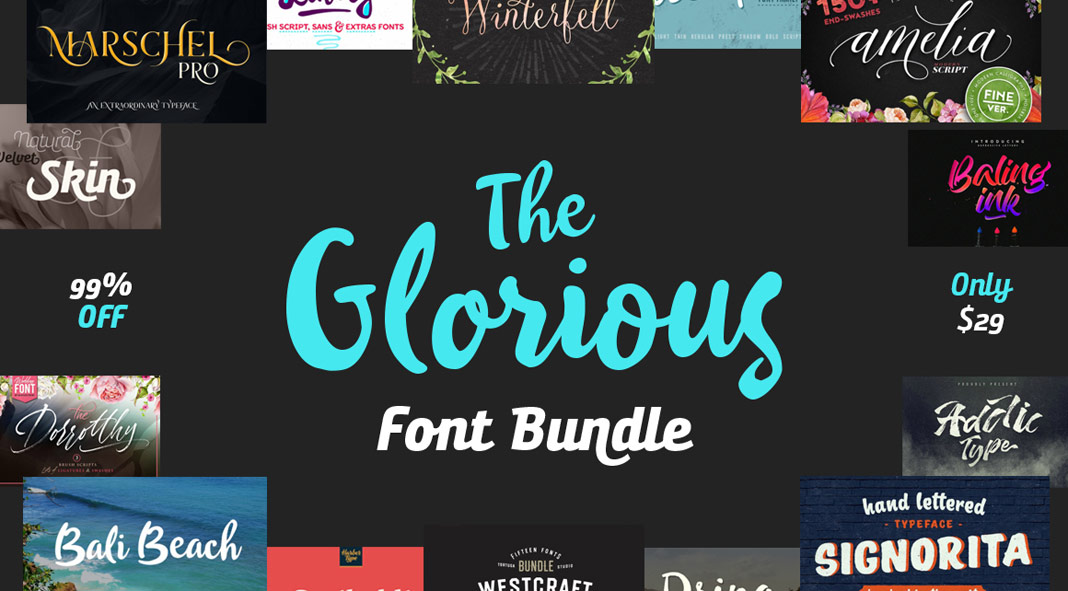
Once again, Pixelo’s current deal is all about fonts! It includes a great selection of beautiful typefaces such as sans serifs, display and script fonts. The varying styles are well suited for different purposes such as advertisement, branding, clothing, posters, and much more. Some of the 25 typefaces are equipped with lots of alternate characters, while others come up as a complete family of different styles, which results in a total of 141 individual fonts. The typefaces were created by designers from around the globe. Only for a few days, the bundle is available for just $29, that’s 99% off!
Pixelo’s current “Glorious Font Bundle” includes: Dorrotthy Script by Blessed Print, Amelia Script Fine version by Blessed Print, Bunita Swash by Buntype, Bunuelo Clean Pro by Buntype, Marschel Pro by Zeune Ink Foundry, Likely Font Family by Adam Ladd, Active Font Family by Adam Ladd, Drina Font by Posterizer KG, Bali Beach Font by Posterizer KG, Omorika Font by Posterizer KG, Westcraft Sans by Tortugastudio, Signorita by Tortugastudio, Garibaldi by Harbor Type, Baling-Ink by Magrib, Addictype Pro by Maghrib, Haiti Organic Brush Font + Extras by Favete Art, Kaleido Script Brush Font by Favete Art, Strongwill Typeface by Alterdeco Inc., Epique Typeface by Alterdeco Inc., Felisha by Artimasa, Mattilda by Artimasa, Winterfell by Artimasa, Bellfort by Leitmotif, Ripley Font by Leitmotif.